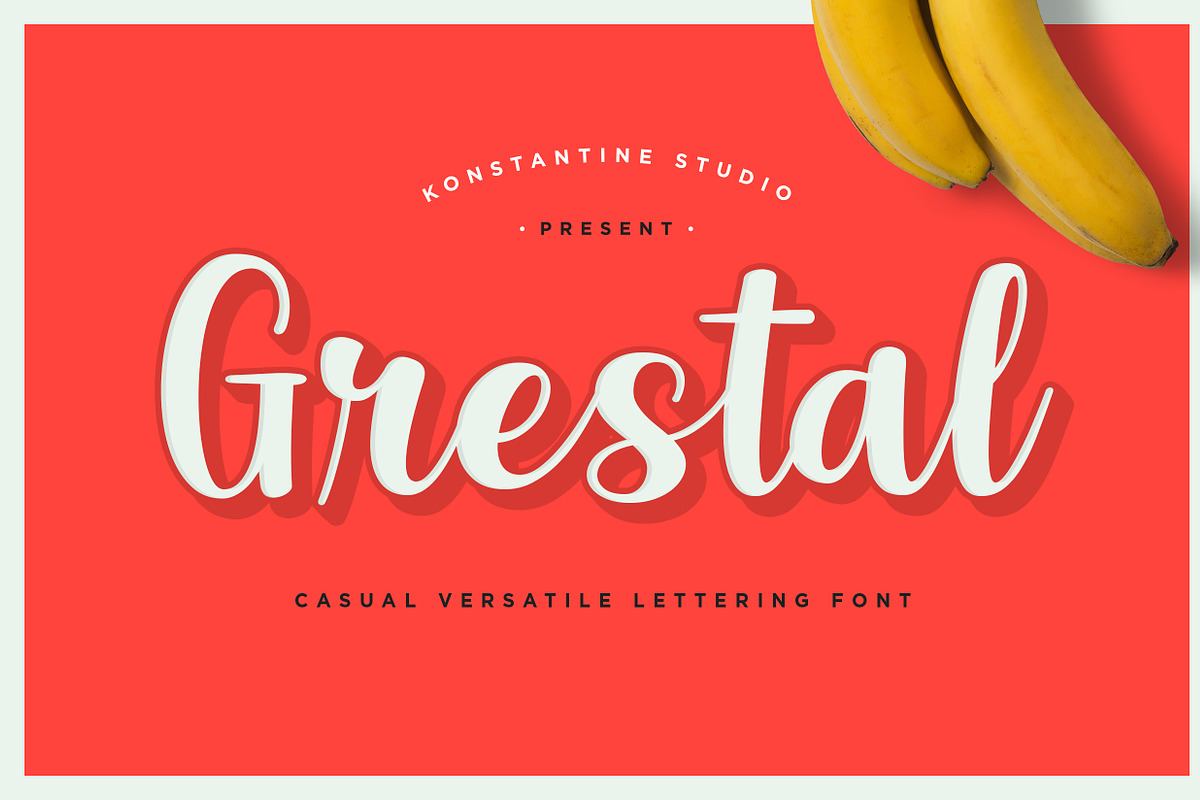
Grestal - Casual Lettering Font is ideal for friendly brand logos, casual restaurant menus, social media graphics, lifestyle blog headers, handmade craft packaging, boutique store signage, personal stationery, and approachable marketing materials.
What makes Grestal - Casual Lettering Font so exciting is its perfect balance of relaxed charm and professional polish that creates an instantly approachable yet refined aesthetic. This versatile script typeface features naturally flowing letterforms with gentle curves and authentic hand-lettered characteristics that communicate warmth, friendliness, and genuine personality. The font's casual elegance and inviting appearance make it ideal for brands seeking to establish personal connections while maintaining design sophistication.
The Grestal - Casual Lettering Font family includes regular and bold weights, along with alternative characters, stylistic ligatures, and decorative elements that provide designers with flexible options for creating personalized casual typography.
Grestal - Casual Lettering Font Free Download presents designers with access to premium casual typography that perfectly captures the essence of handcrafted authenticity without sacrificing professional quality. This adaptable typeface excels in applications where approachability and personality are key brand attributes, making it perfect for small businesses, creative studios, lifestyle brands, and local establishments. The font's casual character makes it particularly effective for coffee shops, artisan bakeries, craft businesses, and community-focused organizations.
The thoughtfully designed letterforms of Grestal - Casual Lettering Font maintain excellent readability while preserving their handwritten charm across various applications. Each character demonstrates natural penmanship qualities that create believable casual lettering without appearing overly stylized or artificial. This authenticity makes the font valuable for projects requiring genuine personal touch and relatable brand communication.
For contemporary casual branding, Grestal - Casual Lettering Font provides the perfect solution for businesses wanting to communicate approachability and authenticity through superior typography. The font's friendly character allows it to build emotional connections with audiences while maintaining professional credibility across print, digital, and environmental applications where casual lettering enhances brand personality and customer engagement.